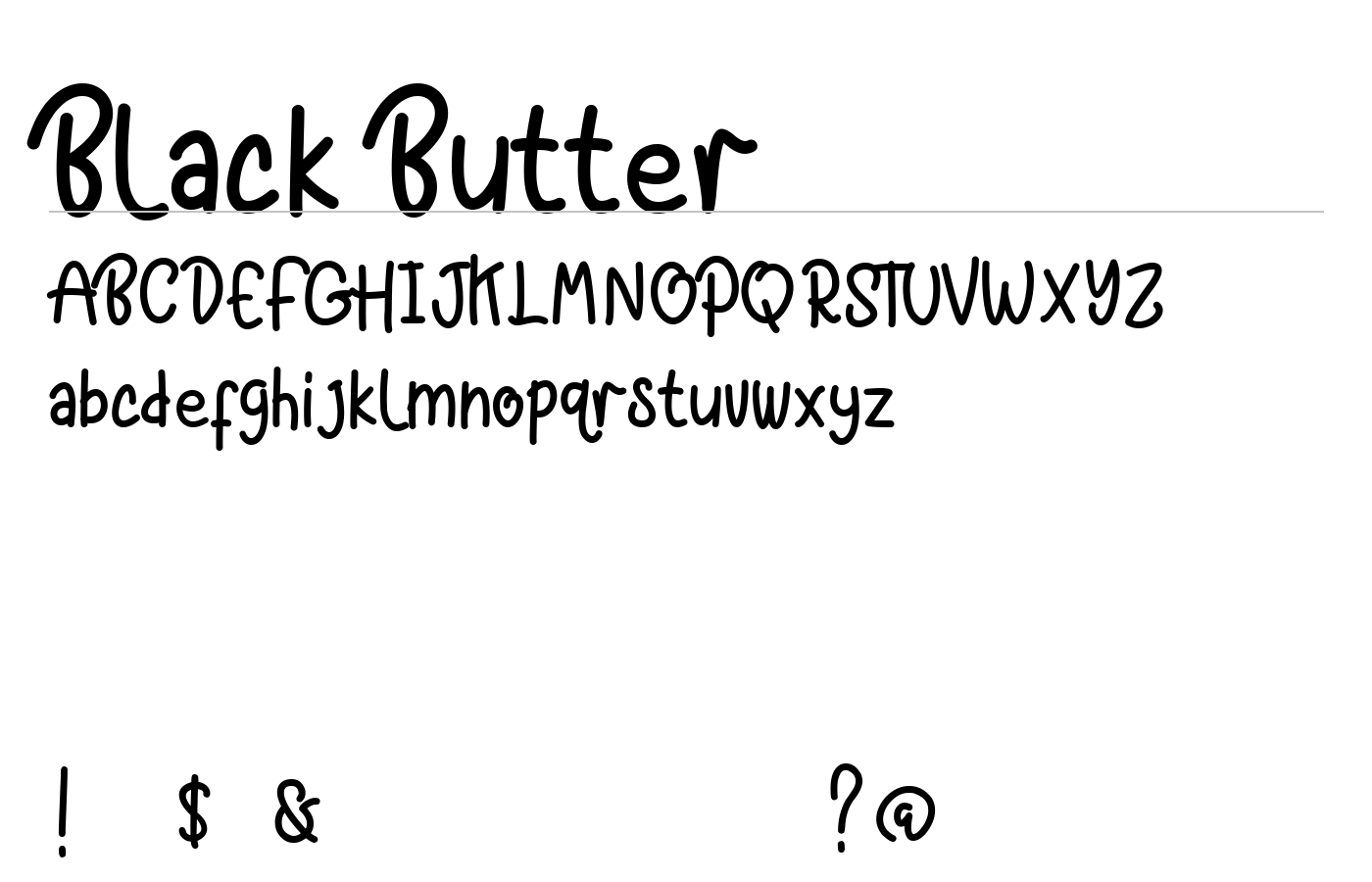
Black Butter Font is a playful and friendly handwritten sans serif typeface with a casual, rounded style that feels approachable and lively. Its medium weight and slightly condensed letterforms, paired with quirky curves and unique character shapes, make it ideal for creative headlines, informal branding, and fun packaging where a warm, personal touch is desired. This font works well in designs that aim to convey creativity, joy, and approachability without losing readability.
Black Butter Font
About Black Butter Font
| Font family | Black Butter Font |
| Designer | Sronstudio |